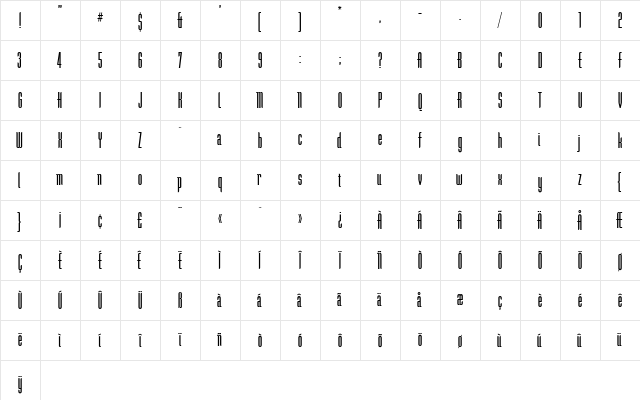
Demonstrator Regular
| Foundry | Copr. Panache Graphics Limited . Demonstrator is a Trademark of Panache Graphics Limited |
| Year | 1987 |
Design Context for Demonstrator Typeface
Demonstrator takes a measured approach to typography — its balanced proportions and neutral character make it a reliable workhorse for both digital and print work.